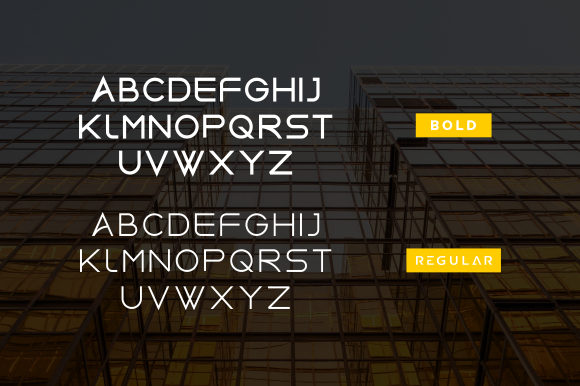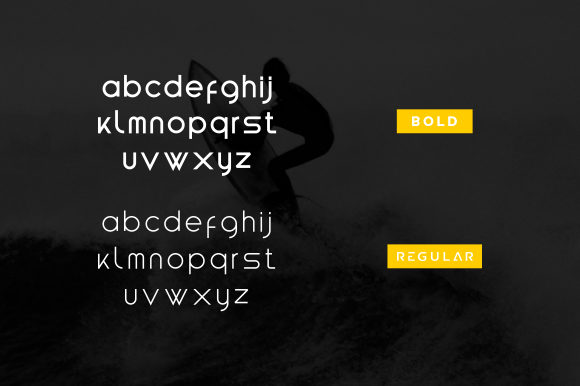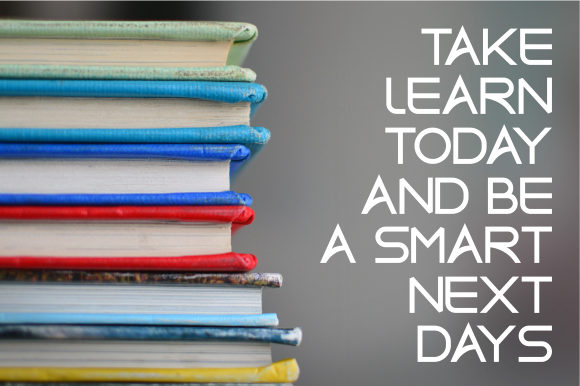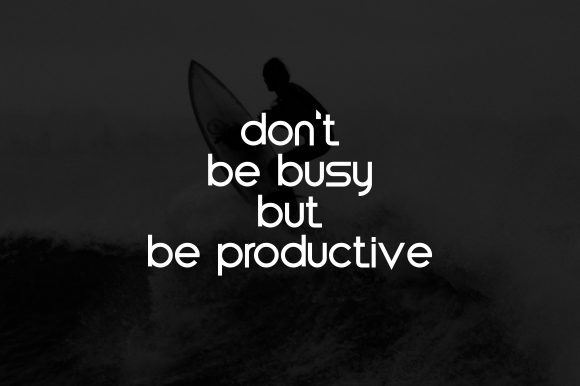
Introduction to Roto Font
Rotois a classic and versatile font.
It’s suitable for digital lettering, prints, logo, poster, t-shirt, packaging and applicable for any type of graphic design .
Key Features of Roto Font
Why Choose Roto Font?
Roto Font offers exceptional quality and versatility, making it a valuable addition to your design toolkit. Whether you’re creating for personal projects or commercial use, Roto Font delivers professional results.